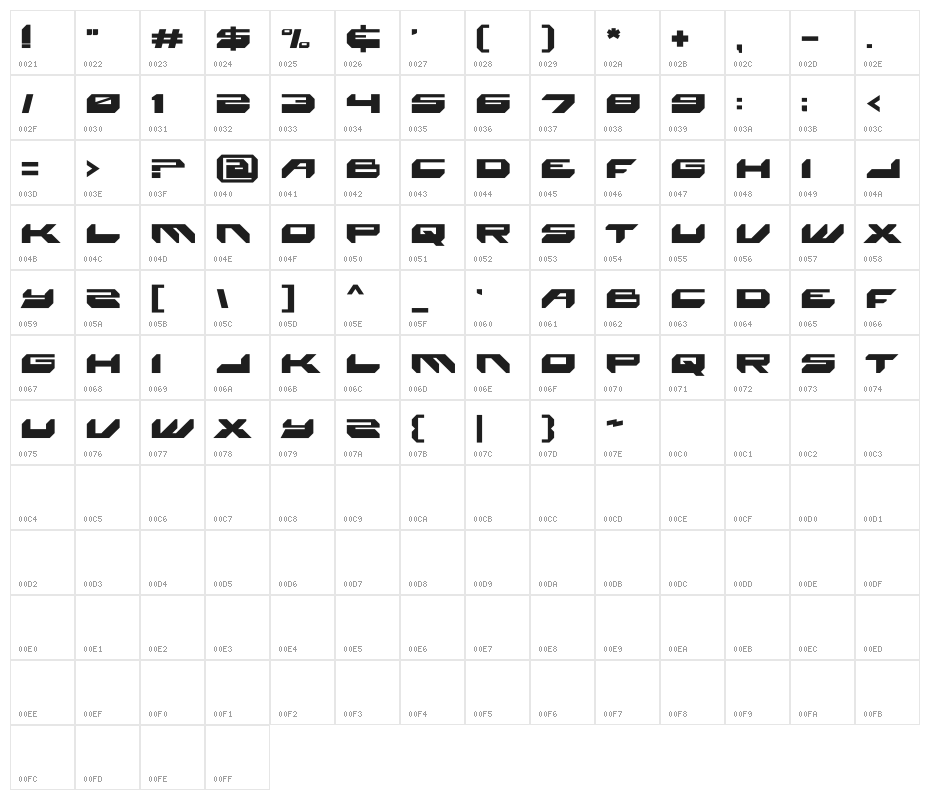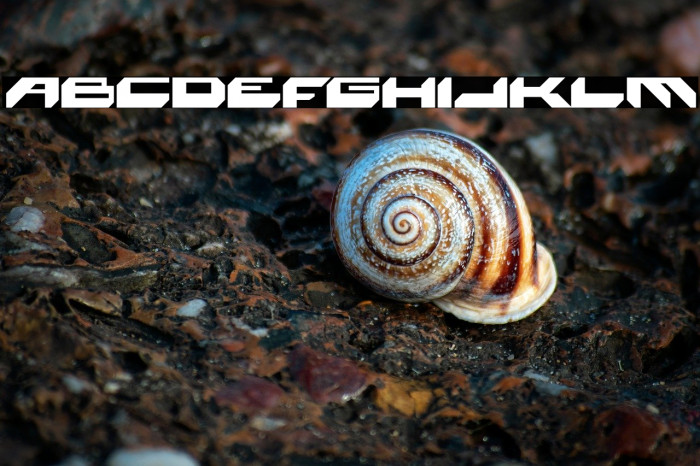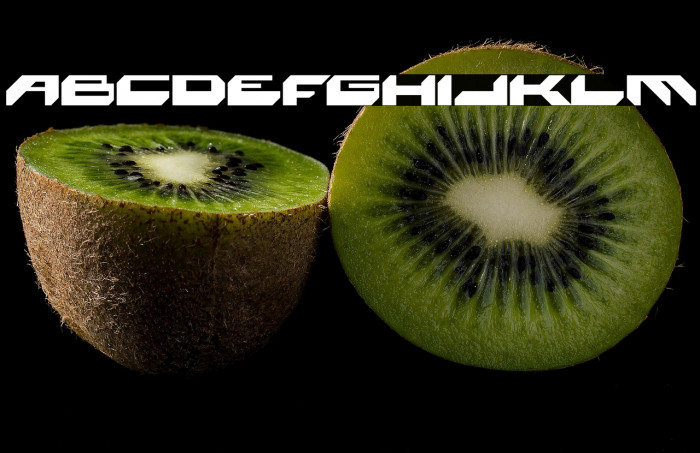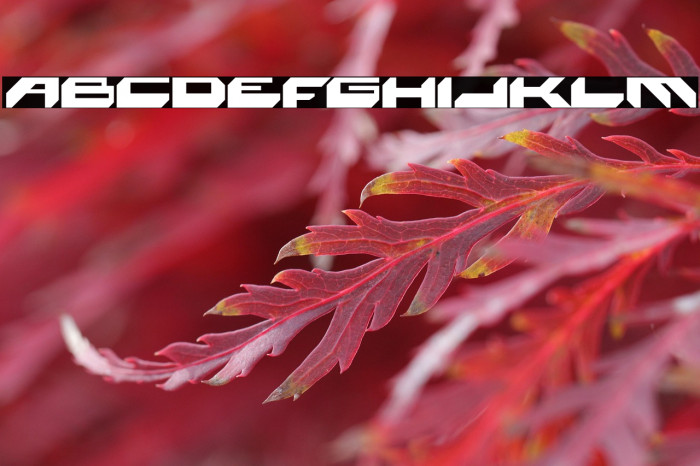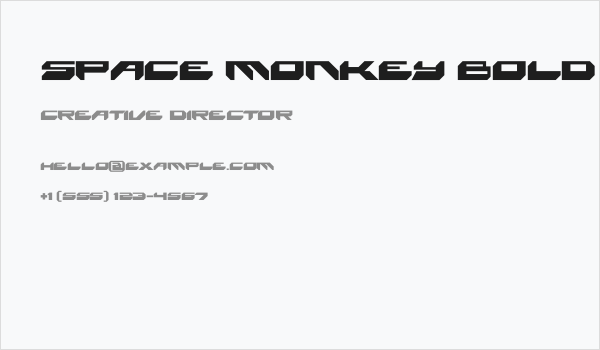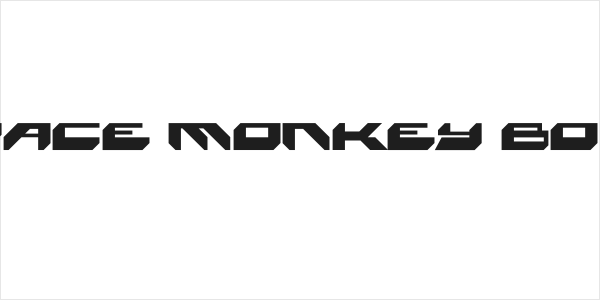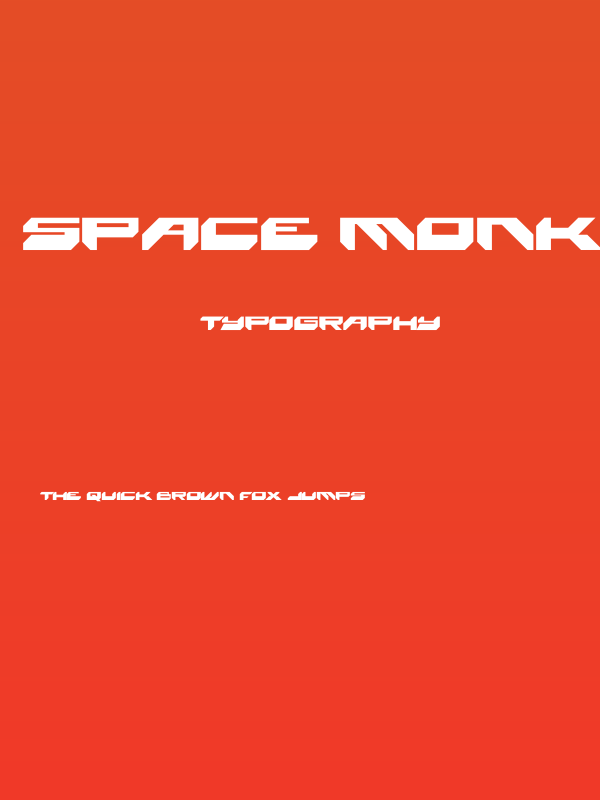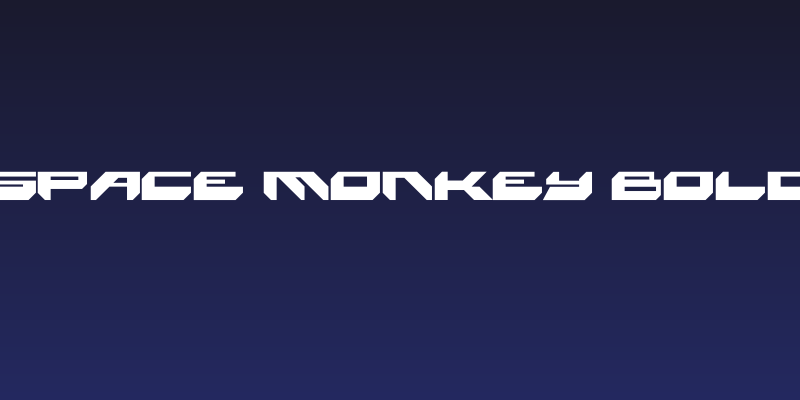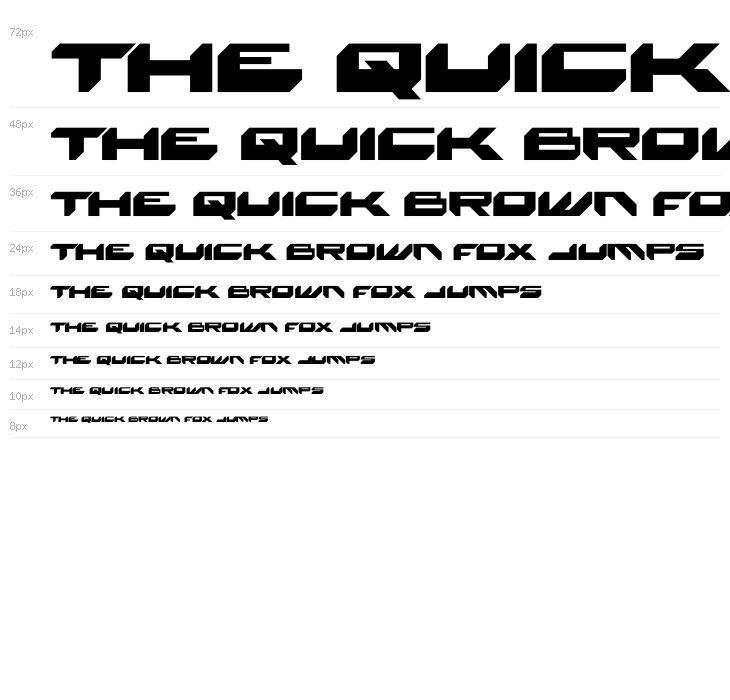
Space Monkey Bold Font
Space Monkey Bold Description
A futuristic, geometric font with sharp angles and a bold presence, suitable for modern and tech-themed designs.
| Proposed Projects | Tech branding, sci-fi posters, video game titles. |